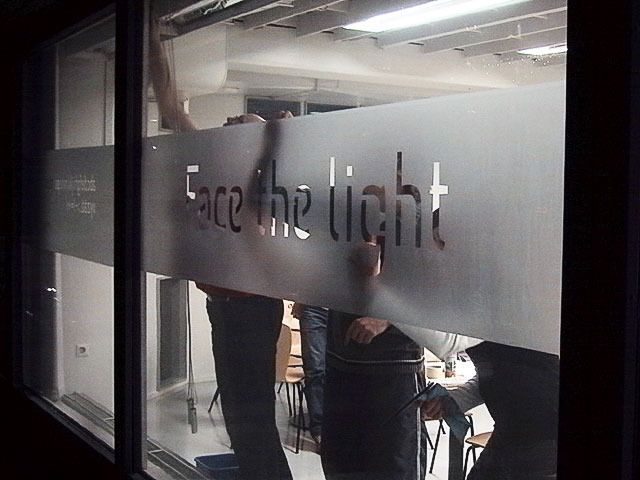
![]() day 1 : day 2 : day 3 : day 4   final result LED-group : Biggest group : Face-the-light group ![]() Renaissance to Rene-Sans. It really took some work but in the end we made it. And it works too! The first idea was about the ideology of Renaissance, to bring light to the dark ages. Light is not always visible. It can also be an inner light, the idea of light in an object. The font making process with a group of ten or so people turned out to be quite a challenge. The road from the beginning to the end was long and at times we thought we were completely lost. But we made it to the end. Kill your darlings! That was our way to go. Our thinking and sketches went from renaissance to gothic to 80's new romantics and back. But once we finalized our basic forms we really started to get things going.
To us the final result seems quite solid and with clear form language. The stencil style font served our final presentation well. Our advise to you is to face the light and just let loose! ps. If you wanna have a closer look on Rene-Sans, check this PDF. ![]()